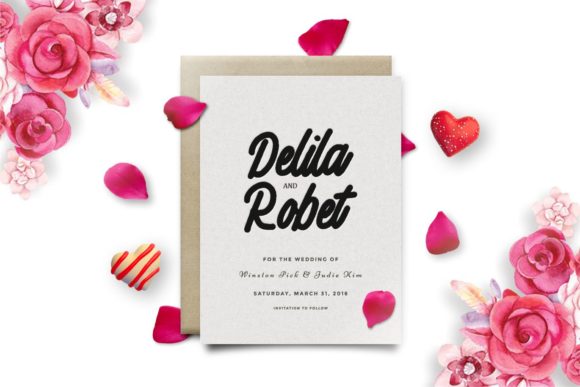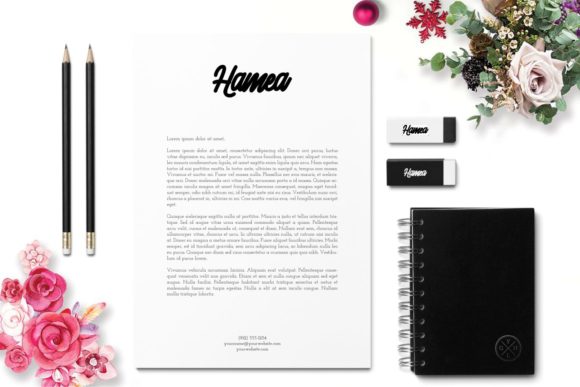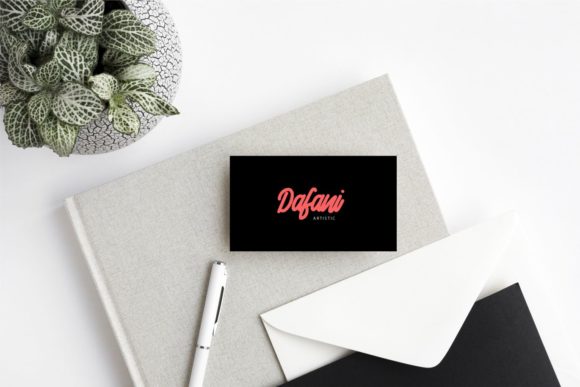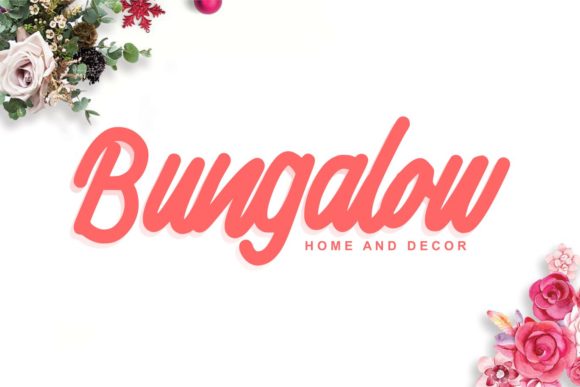
HomeScript FontsSabila Font Script Fonts Sabila Font FacebookXPinterestWhatsApp Sabila Font Poster 2 Sabila Font Poster 3 Sabila Font Poster 4 Sabila Font Poster 5 About Sabila Font Sabila is a charming and modern script font with a unique style. Get inspired by its contemporary coolness! DOWNLOAD NOW People also explored Farmers Made Brithasdine Font Twisted Willow Font Zsyraph Font Dark Fire Font Joyfully Font Kelly Blossom Font Snake Holiday Font Mattahary Font 324 0 TagsSabila Font Previous articleAlmanak FontNext articleArtoone Oriottes Font LEAVE A REPLY Cancel reply Comment: Please enter your comment! Name:* Please enter your name here Email:* You have entered an incorrect email address! Please enter your email address here Website: Save my name, email, and website in this browser for the next time I comment. Personal Use Free Scoothlane Personal Use Free Read more about this font Motherblood Personal Use Free Read more about this font Indonesia Dermawan Personal Use Free Read more about this font Kitsor Rauttie Personal Use Free Read more about this font BLOG Elegant Wedding Invitation Fonts – Handwritten & Script Fonts Elegant Wedding Invitation Fonts Your wedding day is one of the most important moments of your life, and every detail matters—including your invitation design. Our... Where to Buy American Fonts Online in 2024 To increase your work productivity, choose the most readable fonts. Top 7 Google Fonts Alternatives for Faster and Privacy-Friendly Web Design (2025)